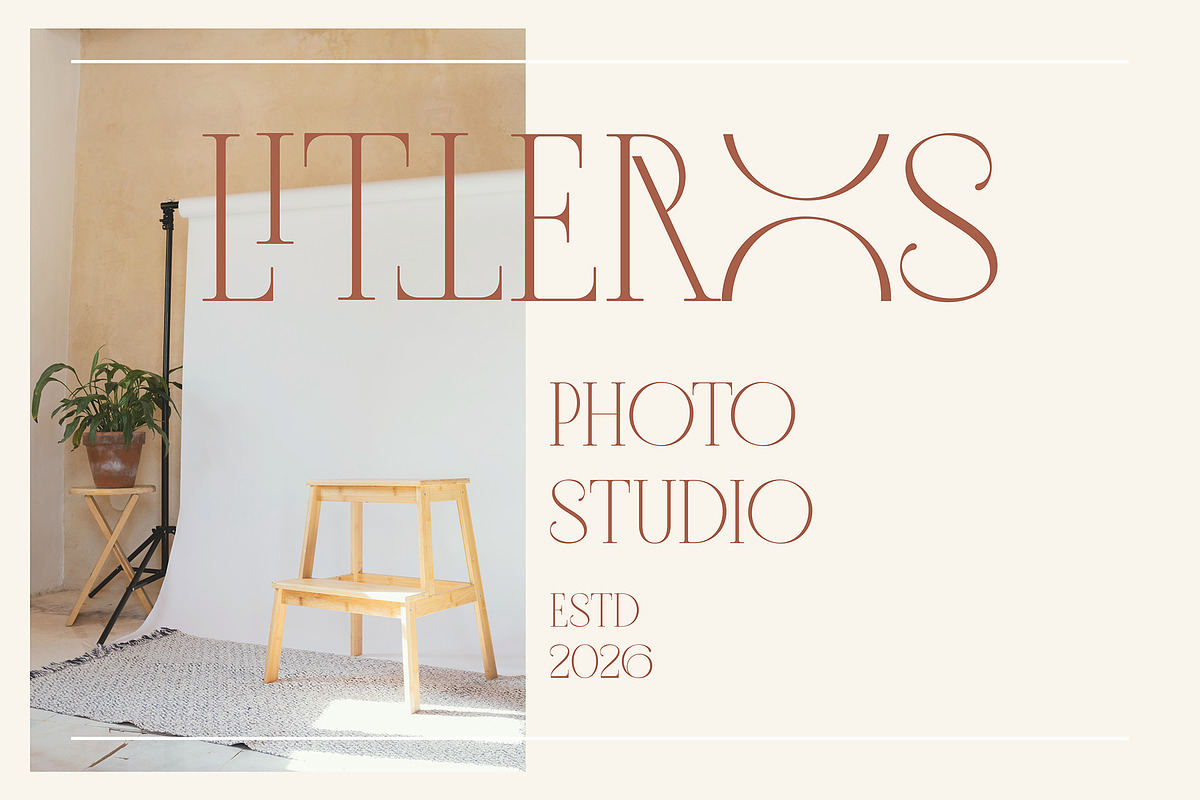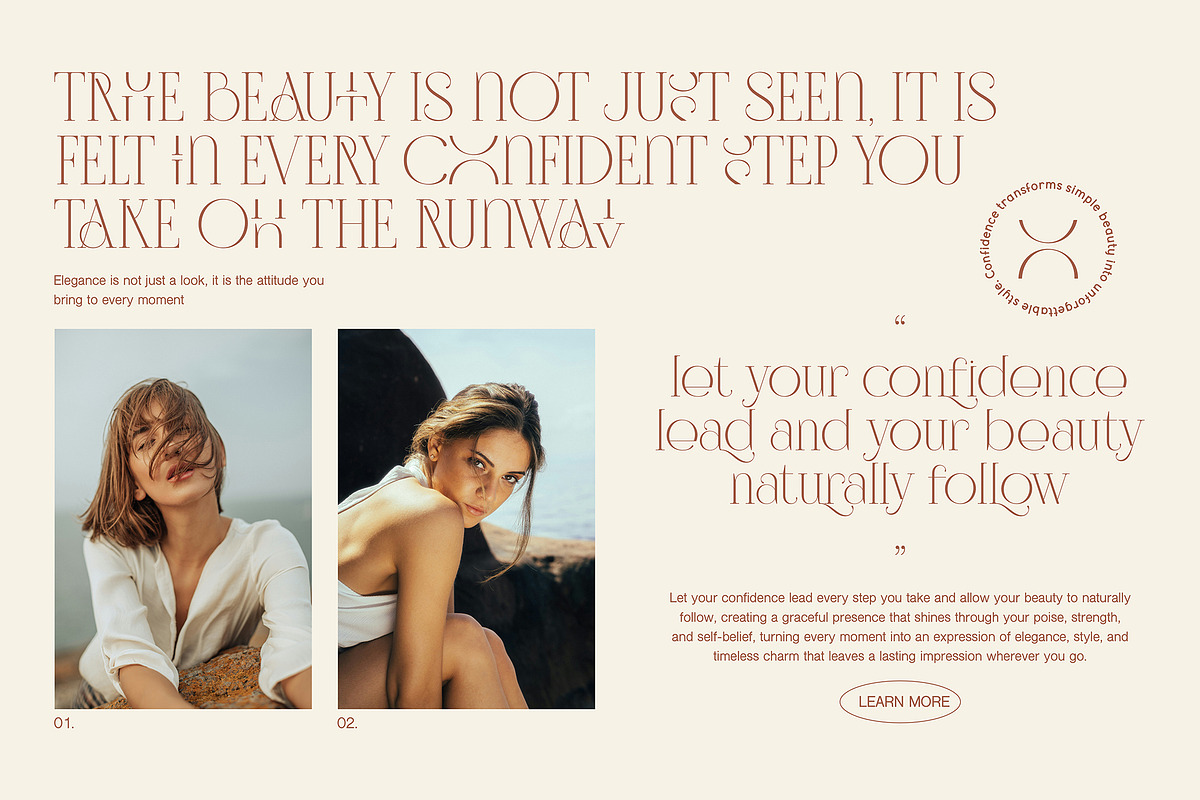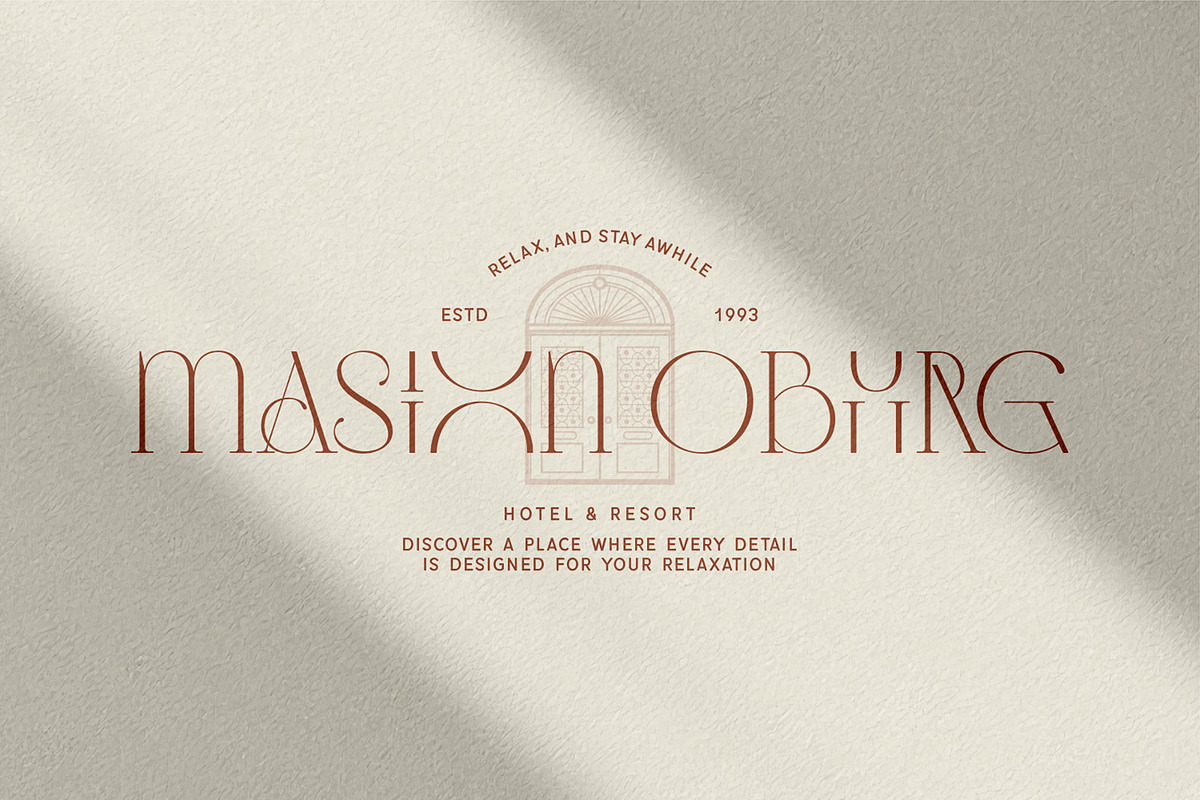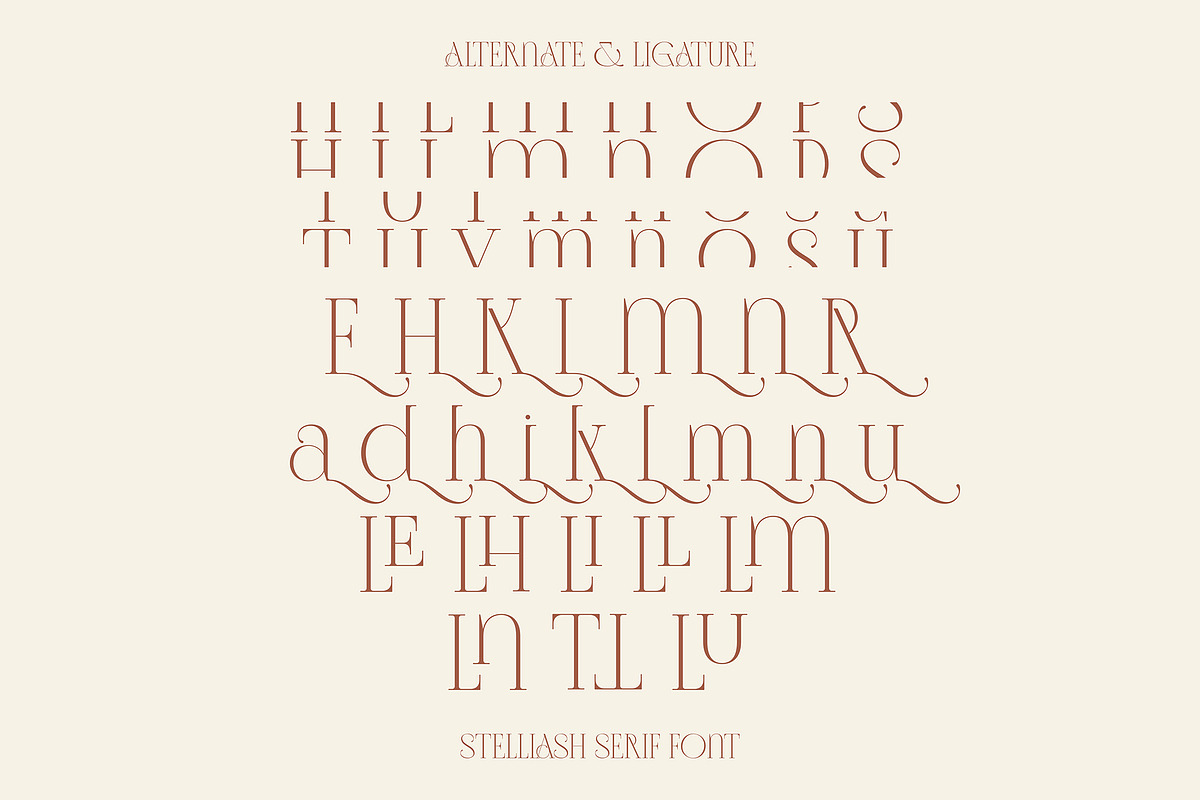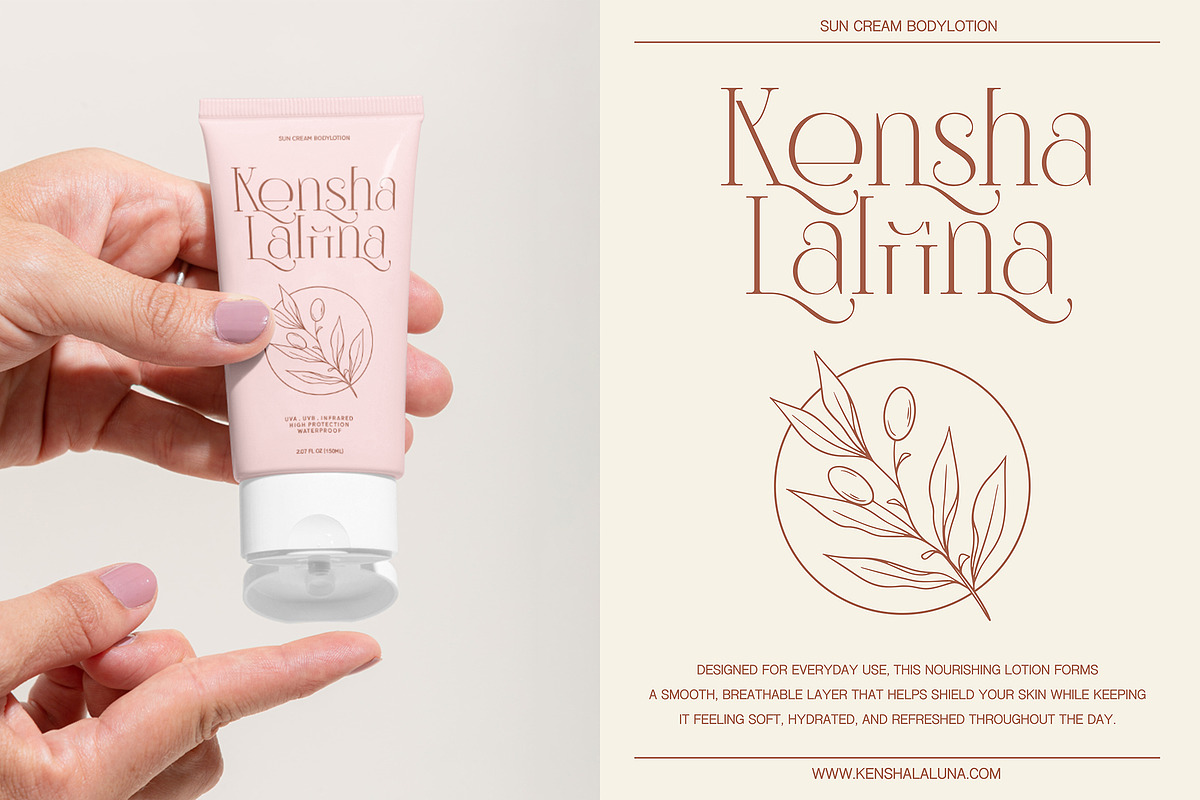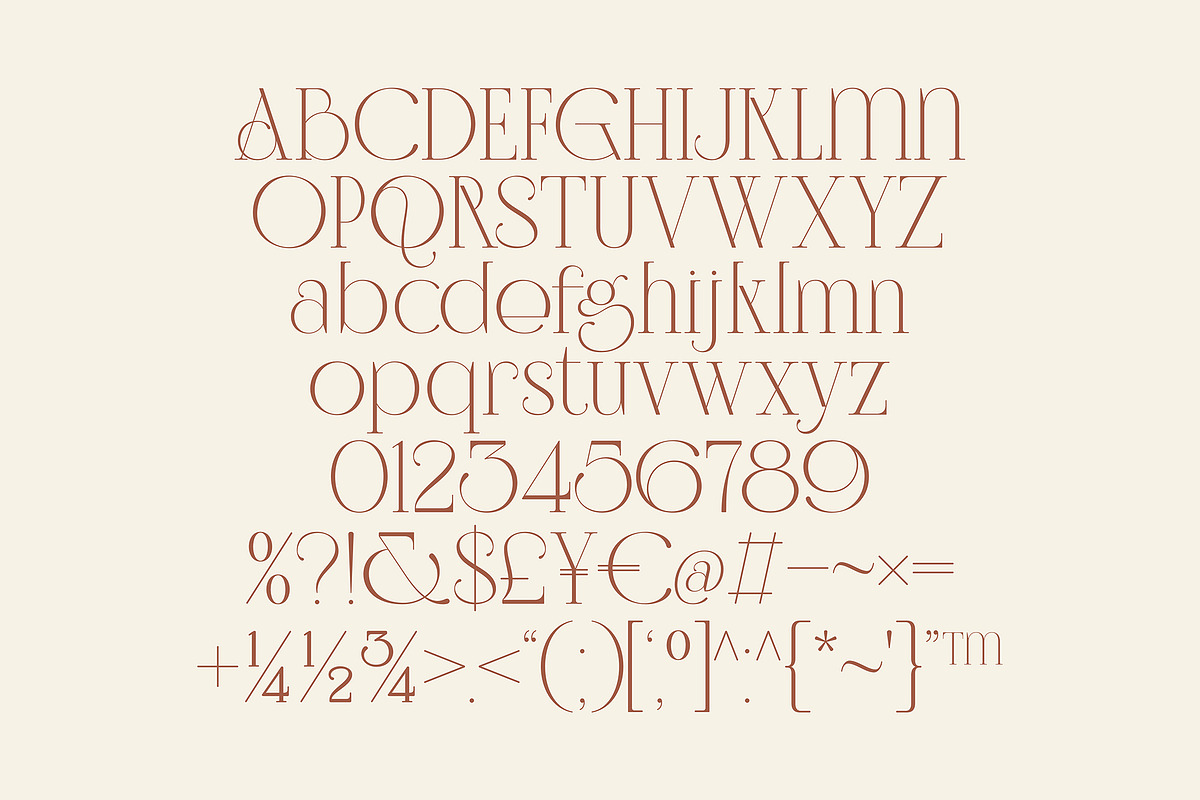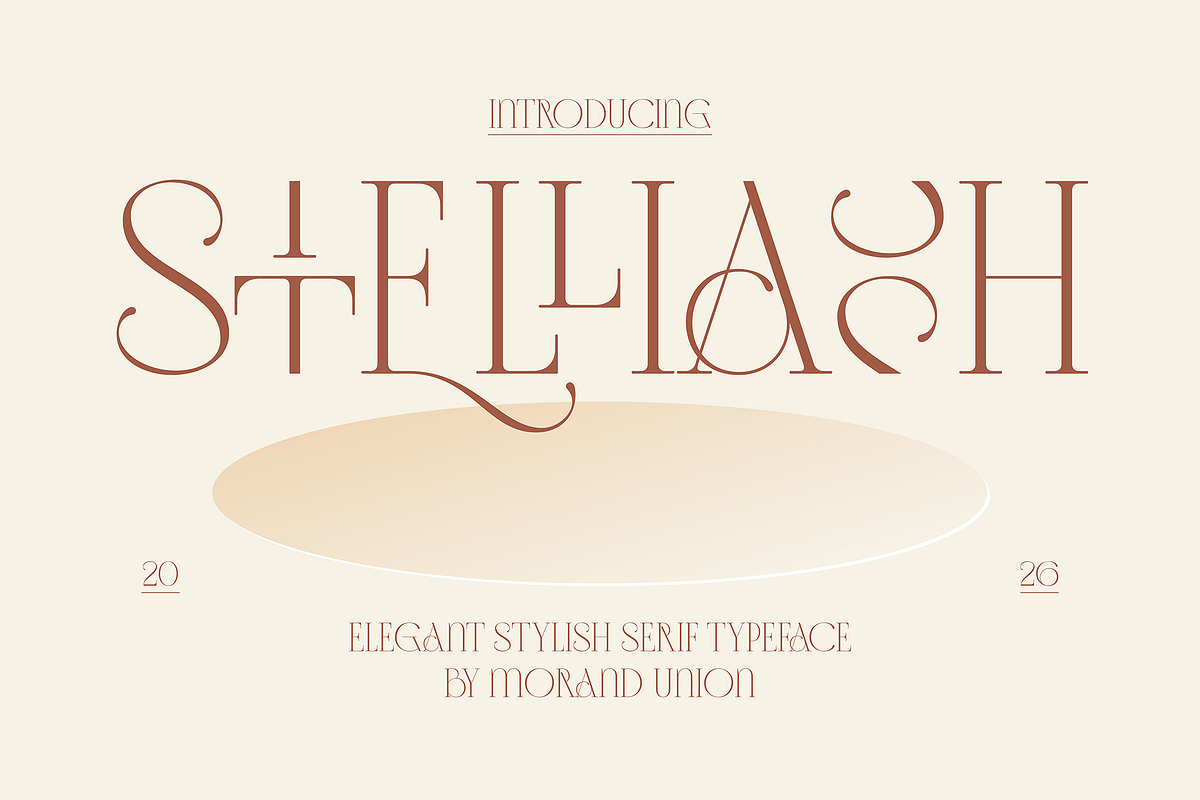
Stelliash – Elegant Stylish Serif
Stelliash is a refined serif typeface that embodies elegance, grace, and modern sophistication. With its delicate high-contrast strokes and beautifully sculpted letterforms, it delivers a luxurious visual experience while maintaining a soft and approachable character.
Designed with distinctive curves and stylish alternates, Stelliash brings a unique rhythm and personality to every composition. Its graceful swashes and subtle decorative touches create a perfect balance between classic beauty and contemporary design.
Ideal for fashion branding, editorial layouts, beauty campaigns, logos, invitations, and premium packaging, Stelliash enhances every project with a timeless yet trendy aesthetic. The carefully crafted details ensure readability while offering expressive typographic possibilities.
* Uppercase & Lowercase
* Numerals & Punctuation
* Stylistic Alternates
* Ligatures
* Multilingual Support
Stelliash is made for designers who seek elegance, style, and a distinctive modern serif with a luxurious feel.